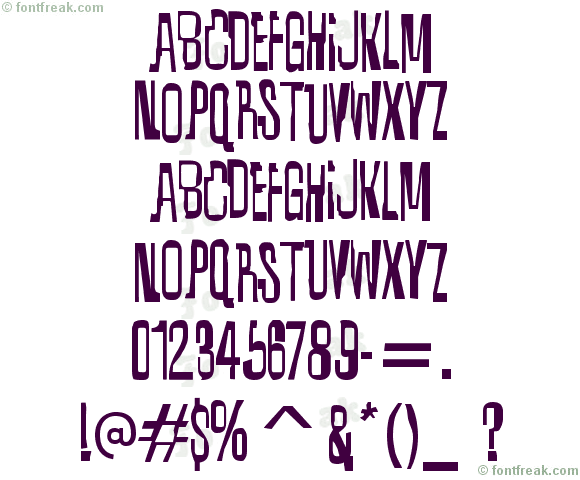
Quixotic
About Quixotic
Quixotic is a distinctive display font designed by Ray Larabie in 1997, available for free download under a freeware license. This font belongs to the decorative category, characterized by its unique and whimsical style. The Quixotic font features bold, geometric letterforms that combine sharp angles and soft curves, creating a playful yet sophisticated appearance. Its stroke weight is predominantly consistent, providing a strong visual impact, while the minimal contrast between thick and thin strokes ensures legibility across various applications. The spacing is well-balanced, allowing for clear and easy reading, making it ideal for both headlines and body text.
Best suited for creative projects, Quixotic excels in use cases such as branding for quirky cafés, eye-catching movie posters, and artistic event flyers. Its whimsical nature also makes it a great choice for wedding invitations and children’s book covers, where a touch of playfulness is desired. The font appeals to graphic designers, small business owners, and content creators looking to inject personality into their projects.
What sets Quixotic apart is its ability to convey a sense of fun and creativity without sacrificing readability. This font stands out not just for its aesthetic qualities but also for the versatility it offers in various design contexts. Whether you're crafting a stunning visual identity or adding flair to your printed materials, the Quixotic font free download provides a unique solution that can elevate your work. For updates and additional information, you can visit www.larabiefonts.com. Donations are gratefully accepted, supporting the continued development of innovative typefaces.